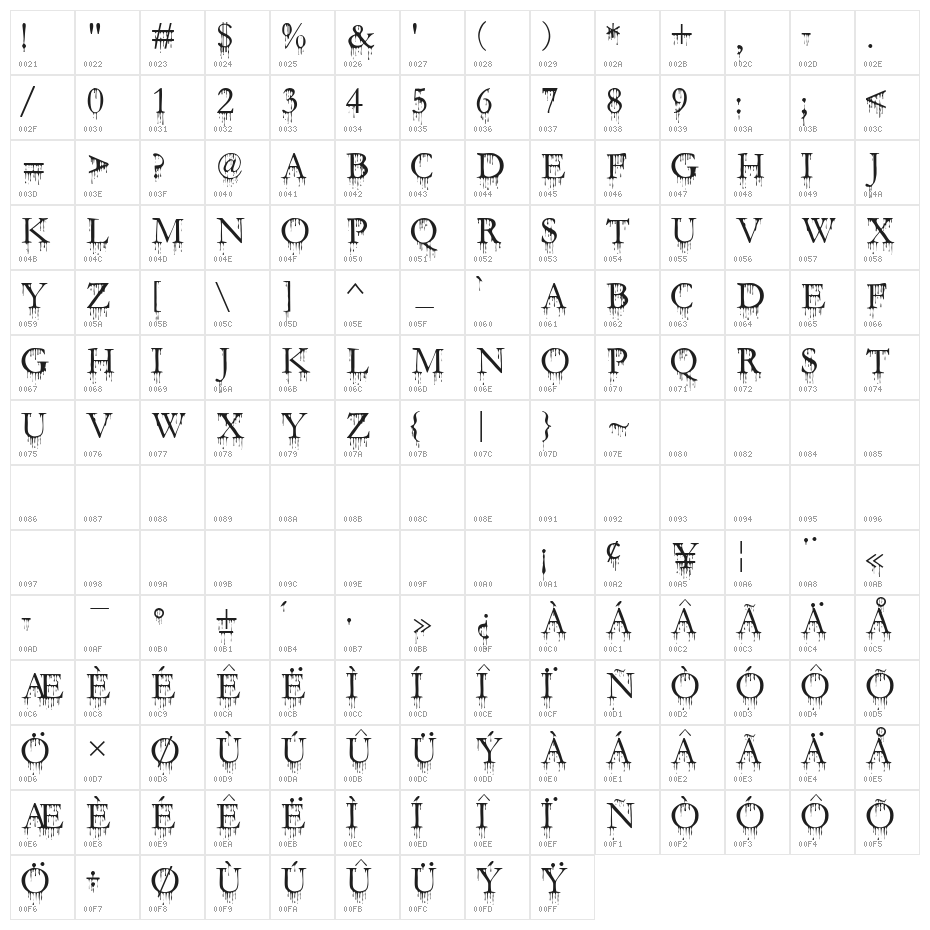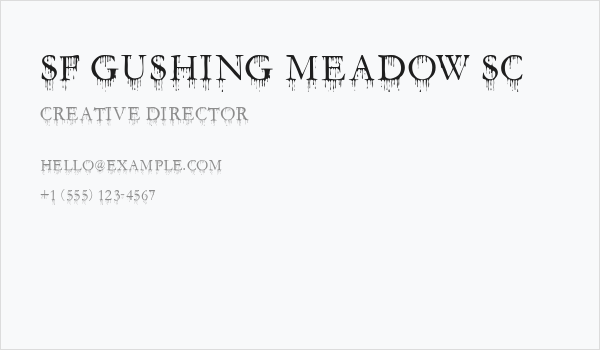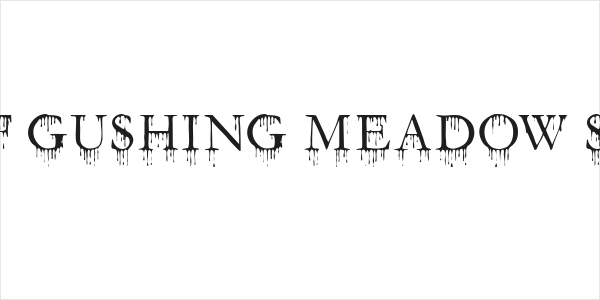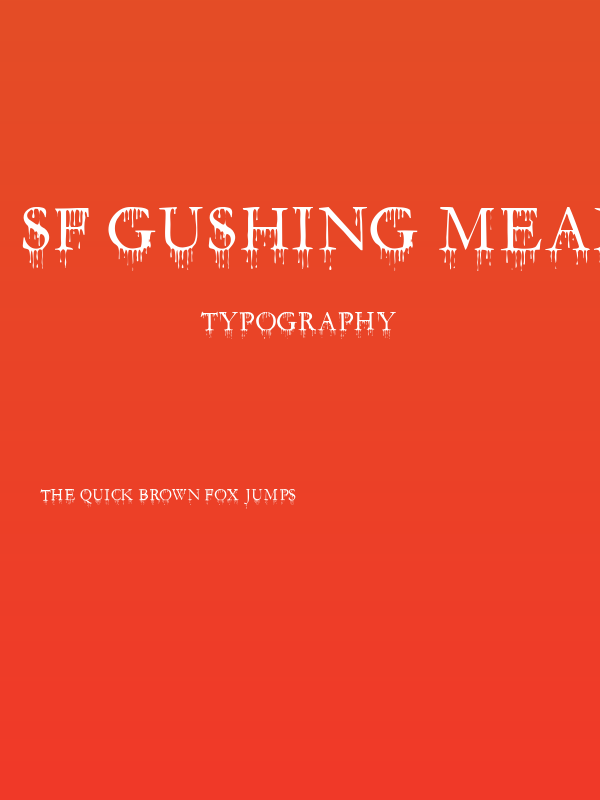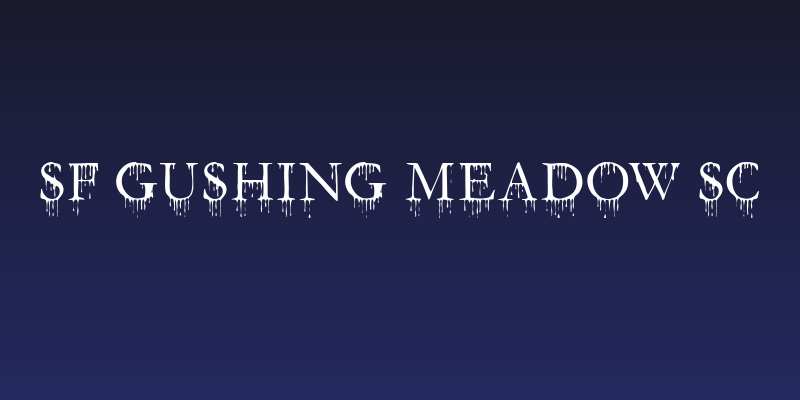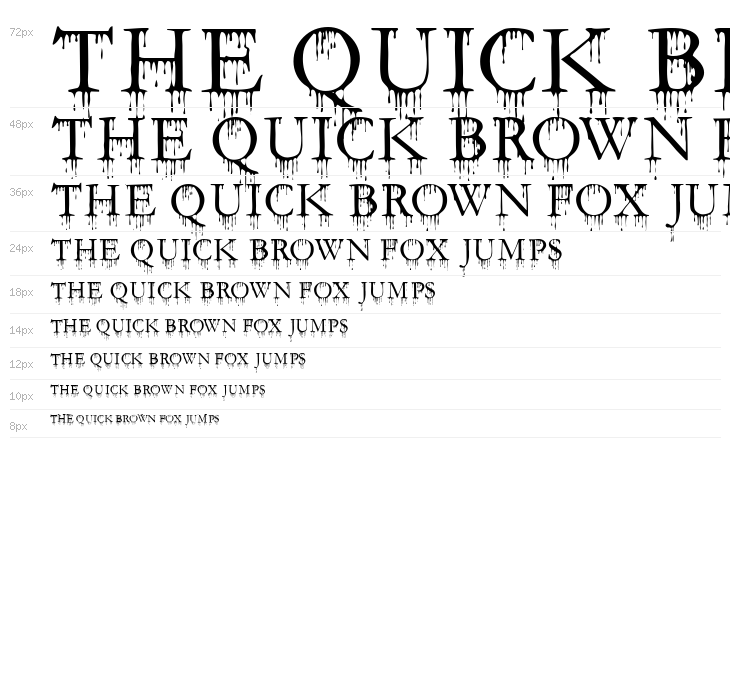
SF Gushing Meadow SC Font
SF Gushing Meadow SC Description
This font features a unique and striking design with a dripping effect that gives it a dramatic and eerie appearance. The characters are bold and have a high contrast between thick and thin strokes, enhancing their visibility and impact. The dripping effect adds a sense of movement and fluidity, making it ideal for creative and artistic projects. The uppercase and lowercase letters maintain a consistent style, with numerals and special characters also incorporating the distinctive drip motif. This font is perfect for projects that require a bold statement or a spooky, Halloween-themed aesthetic.
| Proposed Projects | Perfect for Halloween-themed designs, horror movie posters, creative art projects, and eye-catching headlines. |